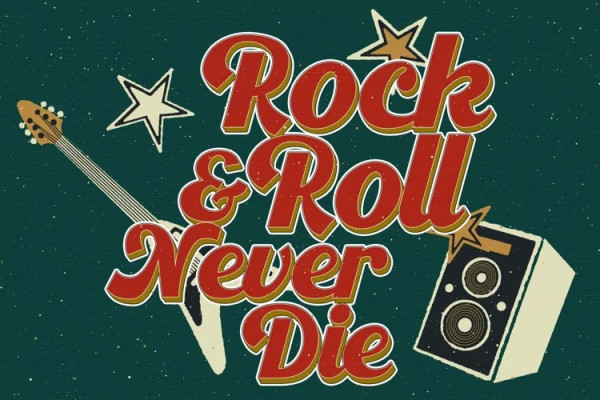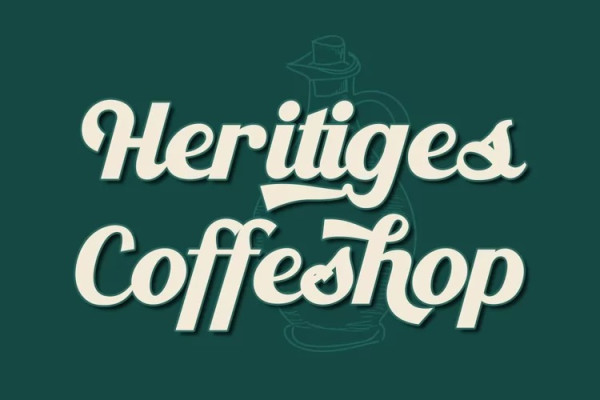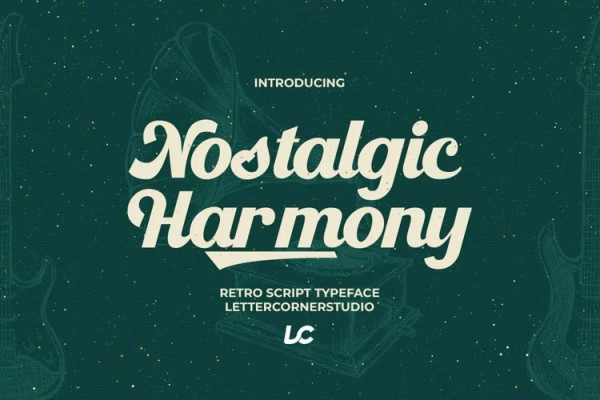
Nostalgic Harmony Font
Nostalgic Harmony Font, a new classic bold script. Bring back to the 70’s era NostalgicHarmony inspired by posters and album covers of funk, disco and rockabilly music with bold and fun style.
Nostalgic Harmony comes with OpenType features such stylistic alternates, stylistic sets, swash & ligatures and is good for logotype, poster, badge, book cover, t-shirt design, packaging and any more.